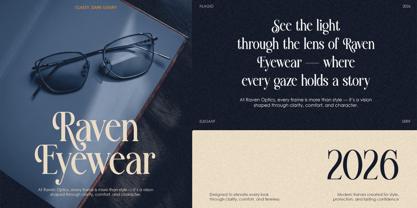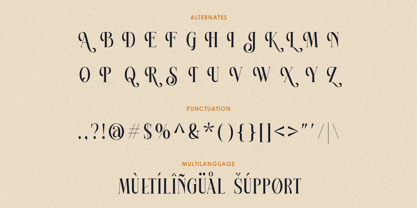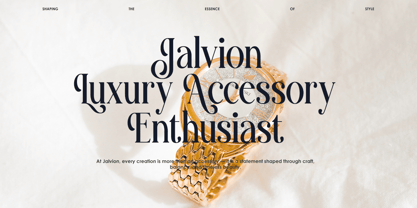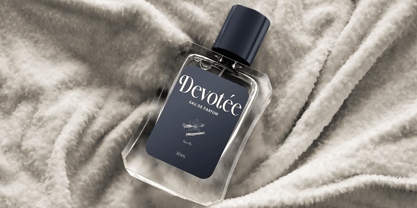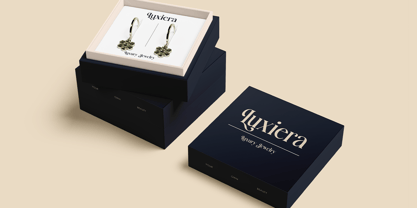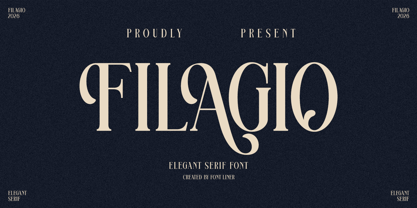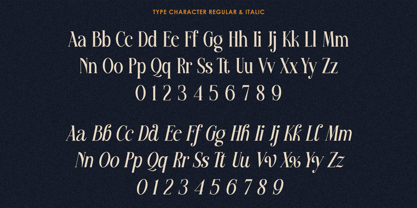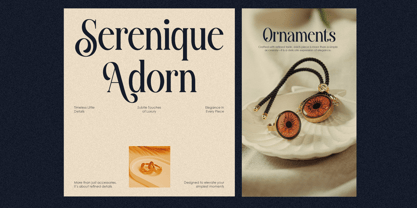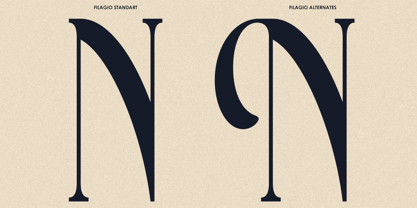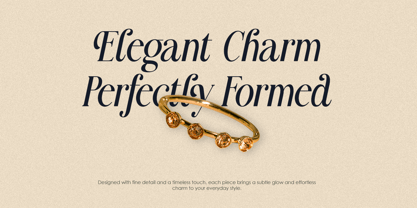
Filagio
Filagio is a refined elegant serif font crafted to elevate visual storytelling with a timeless and luxurious touch. Designed with high-contrast strokes and distinctive letterforms, Filagio brings a graceful balance between classic sophistication and modern editorial aesthetics. Its unique curves and stylish ligatures create a signature look that instantly stands out in premium design compositions.
Inspired by high-end fashion typography and luxury branding, Filagio is perfect for projects that demand elegance and authority. Whether you're working on logo design, magazine layouts, wedding invitations, or upscale packaging, this font delivers a polished and memorable impression. The artistic serif details add personality while maintaining readability, making it versatile across both display and branding use.
Filagio is built for designers who want to create bold yet elegant visuals. From fashion campaigns to luxury brand identities, this font helps communicate exclusivity, beauty, and confidence. With its distinctive style and refined character, Filagio turns every word into a statement piece.
• Regular and Italic
• Stylistic Alternates
• Uppercase and Lowercase
• Number, Symbol, and Punctuation
• Multiliingual Support